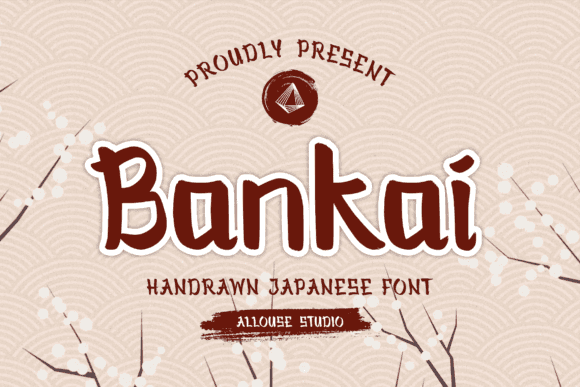
Bankai Font for Crafting, Logos and Print Projects
The Bankai Font is a dynamic typeface engineered for use in creative production environments including cutting, printing, and branding. It features stylized characters with sharp edges and modern flair, suitable for physical and digital product creation. Additionally, the Bankai Font is versatile enough to complement various design aesthetics, making it an excellent choice for both contemporary and classic themes. Alongside the Bankai Font, designers often gravitate towards the barbarelo font for design projects that require a unique and eye-catching appeal. This combination allows for enhanced creativity and ensures that visual communication resonates effectively with target audiences. Moreover, incorporating the barey candy font for crafting can add a playful and whimsical touch to any project. This font, with its rounded shapes and charming style, enhances the overall design while maintaining a fun aesthetic. Together with the Bankai and barbarelo fonts, these typographic choices empower designers to push boundaries and create distinctive visual narratives. Furthermore, incorporating the basgerd font for creative designs can elevate any project by adding an artistic touch that captures attention. This font, with its distinct style, pairs beautifully with the Bankai Font, further expanding the creative possibilities for designers. Together, these typefaces can create a stunning visual narrative that not only communicates a message but also captivates the audience.
This font supports personal expression and commercial design production across multiple crafting and printing applications. Its versatile characteristics make it an ideal choice for everything from greeting cards to promotional materials. By utilizing the barloesius font for creative projects, designers can elevate their work with a unique flair. The font's readability and aesthetic appeal ensure that messages resonate with audiences, making it a valuable asset in any creative toolkit. Additionally, the barloesius font serves as a basic lettering font for crafting, allowing users to effortlessly incorporate stylish text into their handmade projects. Its balanced design ensures that every letter shines, adding an element of sophistication to DIY creations. Whether used in scrapbooking or personalized gifts, this font enhances creativity and connects with the intended audience beautifully.
- Bold custom logos and branding materials
- Crafted signage, decals, and wall art
- Printable apparel and merchandise
- Personalized stationery and gift tags
- High-resolution digital products
- Modern, edgy letterforms for standout design